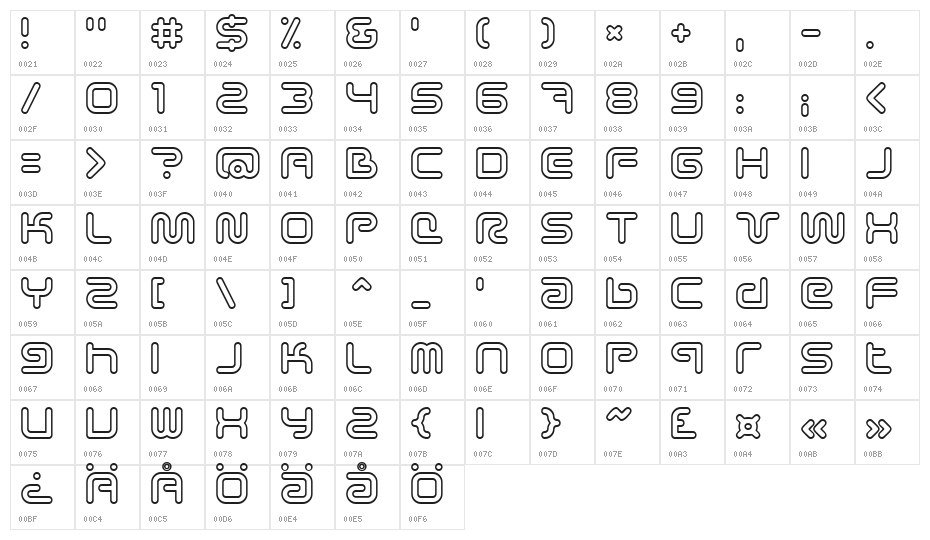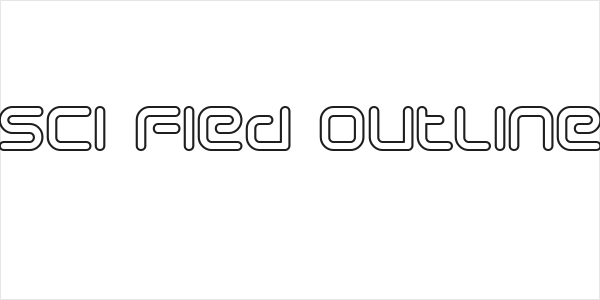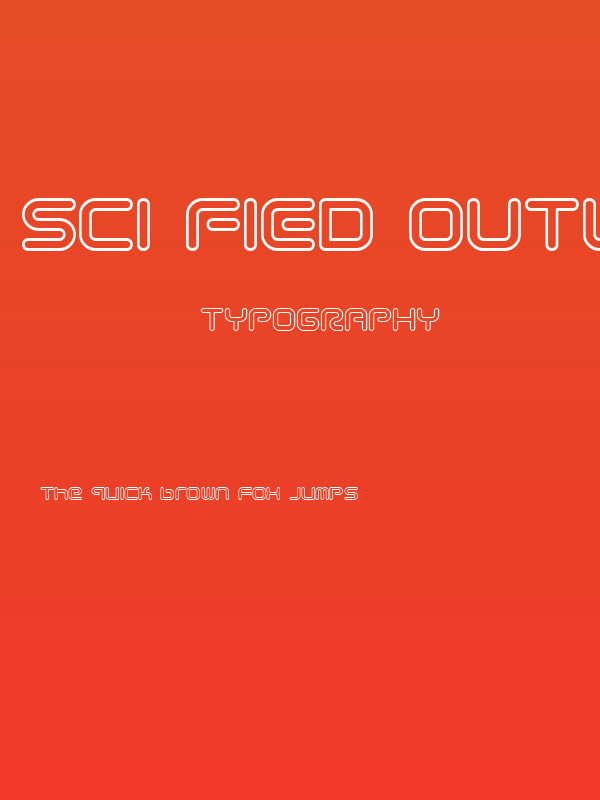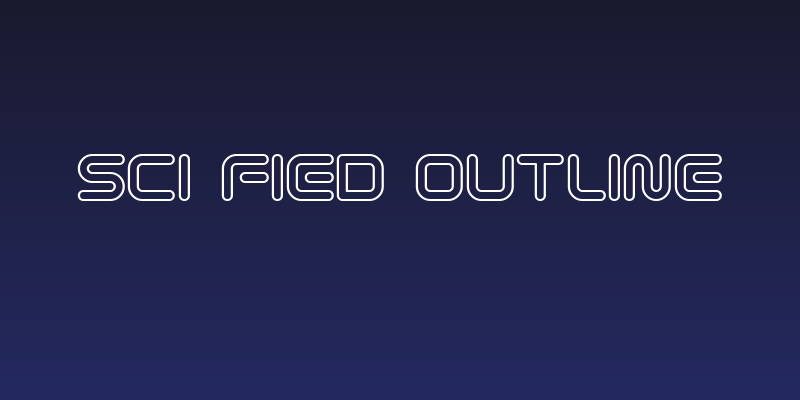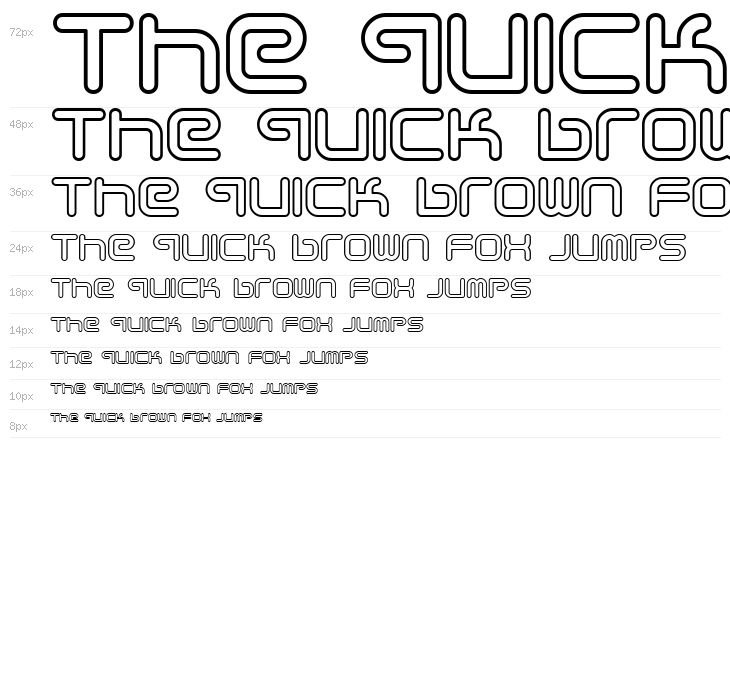
Sci Fied Outline Font
Sci Fied Outline Description
This font features a futuristic and geometric design with an outline style that gives it a modern and tech-inspired look. The characters are constructed with rounded edges and consistent line thickness, creating a clean and cohesive appearance. The uppercase and lowercase letters maintain a uniform height, enhancing readability while adding a unique aesthetic. Numbers and special characters follow the same design principles, ensuring a harmonious overall style. This font is ideal for projects that require a contemporary and innovative feel, making it suitable for technology-related themes.
| Proposed Projects | Ideal for technology-themed designs, sci-fi movie posters, video game titles, and modern branding. |